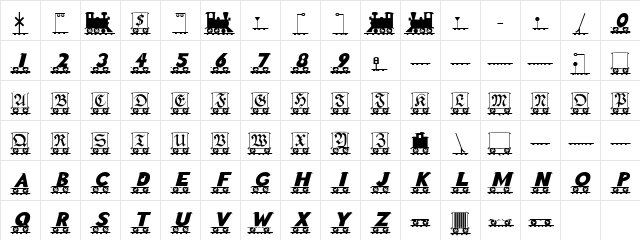
LetterTrain is a composed and adaptable typeface that performs quietly and consistently across a wide range of design contexts. The slanted form adds forward momentum and visual energy. Its bold stroke weight gives it real presence on the page.
Pro Tip: Use LetterTrain for emphasis, pull quotes, and subheadings where its slanted energy can add rhythm to the layout.